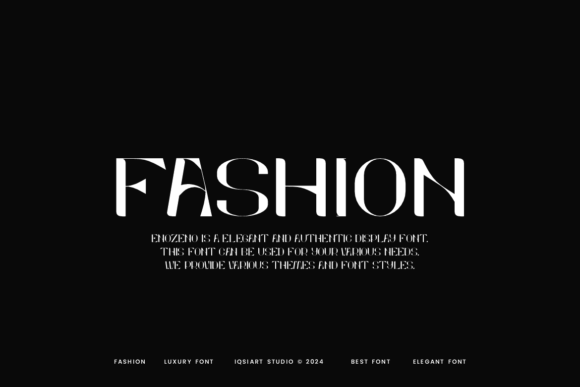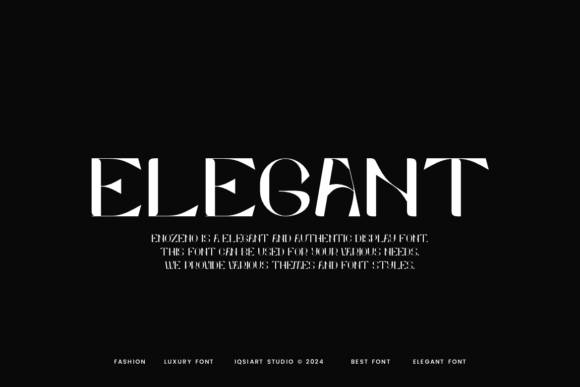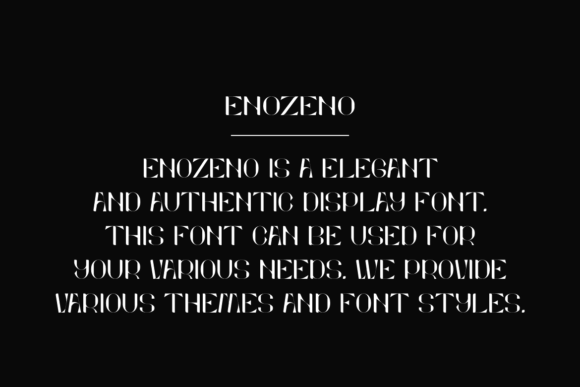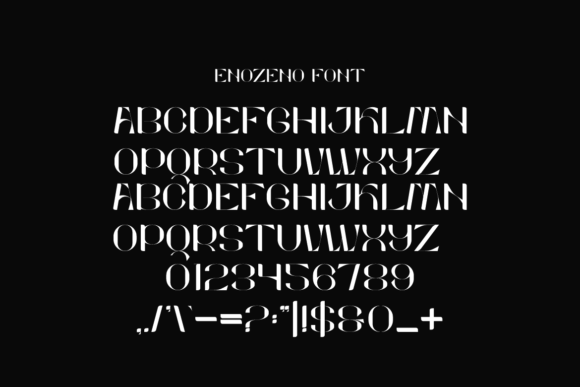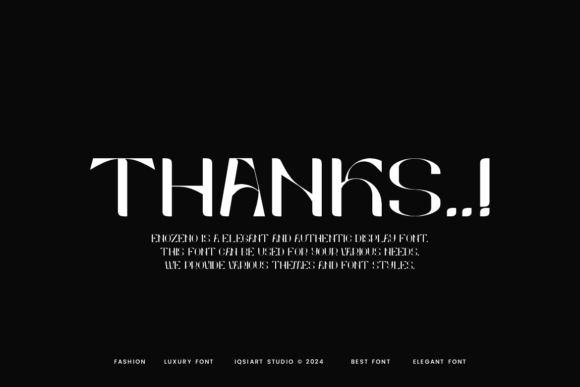
Introduction to Enozeno Font
Enozeno is a stylish modern font designed for luxury fashion.
Its sleek lines and elegant curves make it perfect for chic branding and high-end designs Ideal for fashion magazines, upscale labels, and elegant events, Enozeno adds a touch of sophistication to any project.